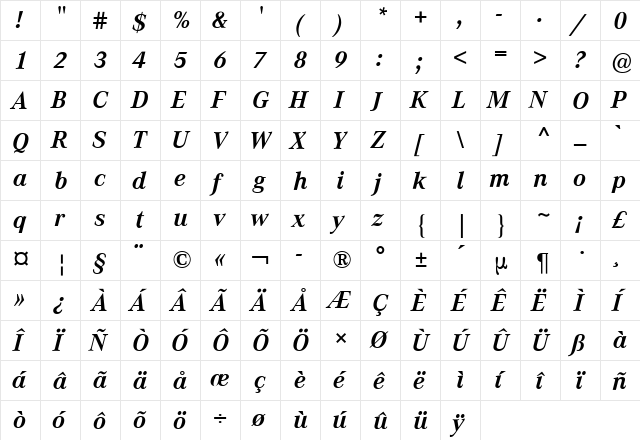
Corporate A BQ Bold Italic
Design Context for Corporate A BQ Typeface
Corporate A BQ is a composed and adaptable typeface that performs quietly and consistently across a wide range of design contexts. The slanted form adds forward momentum and visual energy. The heavy weight commands attention and anchors typographic hierarchies.
Pro Tip: Use Corporate A BQ for emphasis, pull quotes, and subheadings where its slanted energy can add rhythm to the layout.